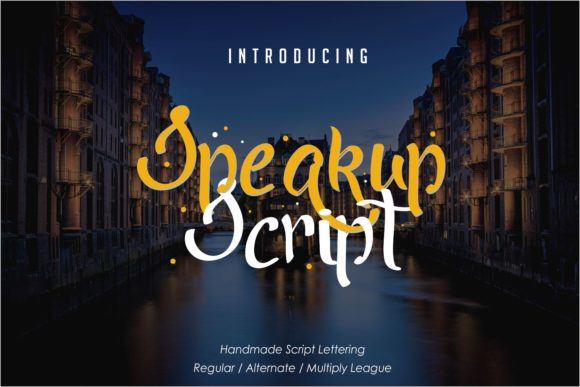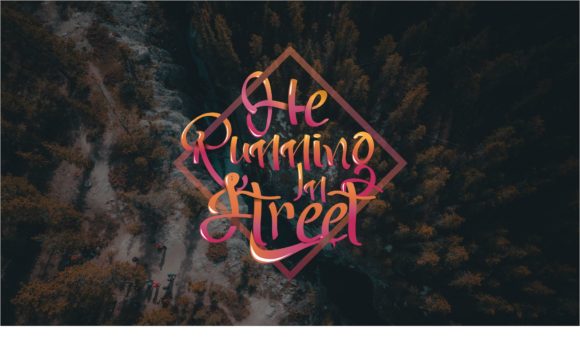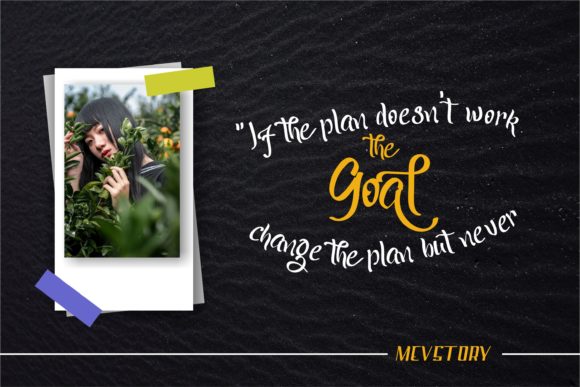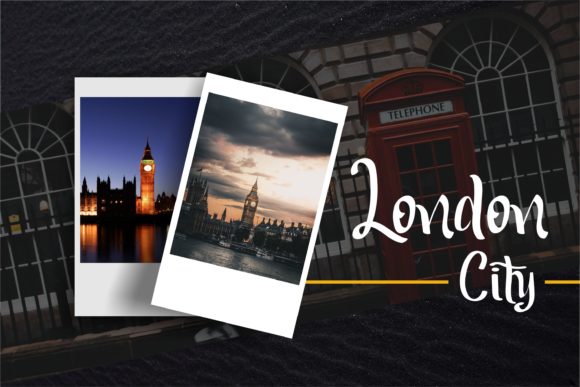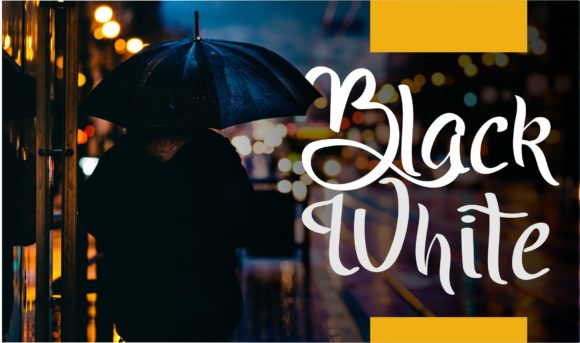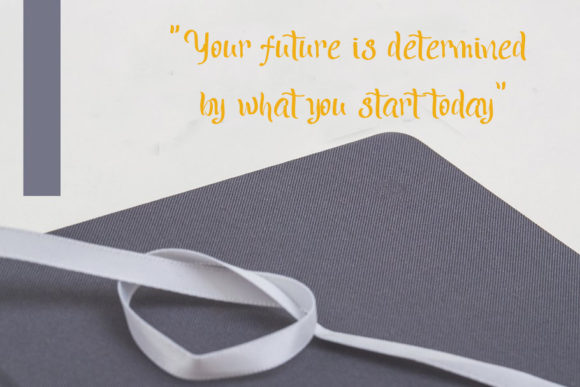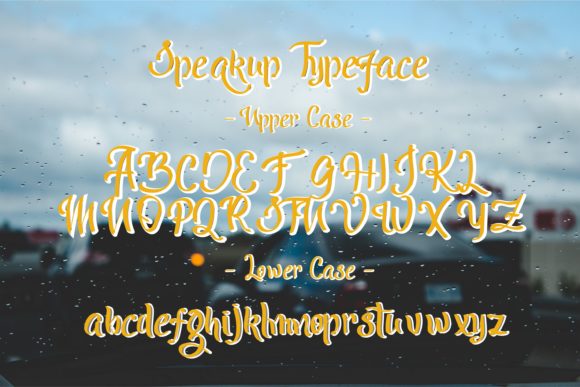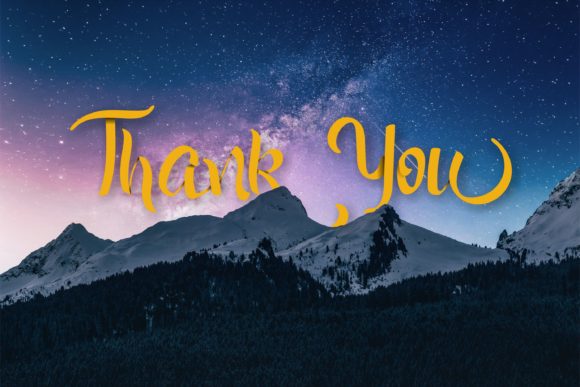
Speakup Script Font
About Speakup Script Font
Speakup is a bold and beautiful handwritten font with lots of personality! Fall in love with its striking charm, and turn any design project into a stand out!